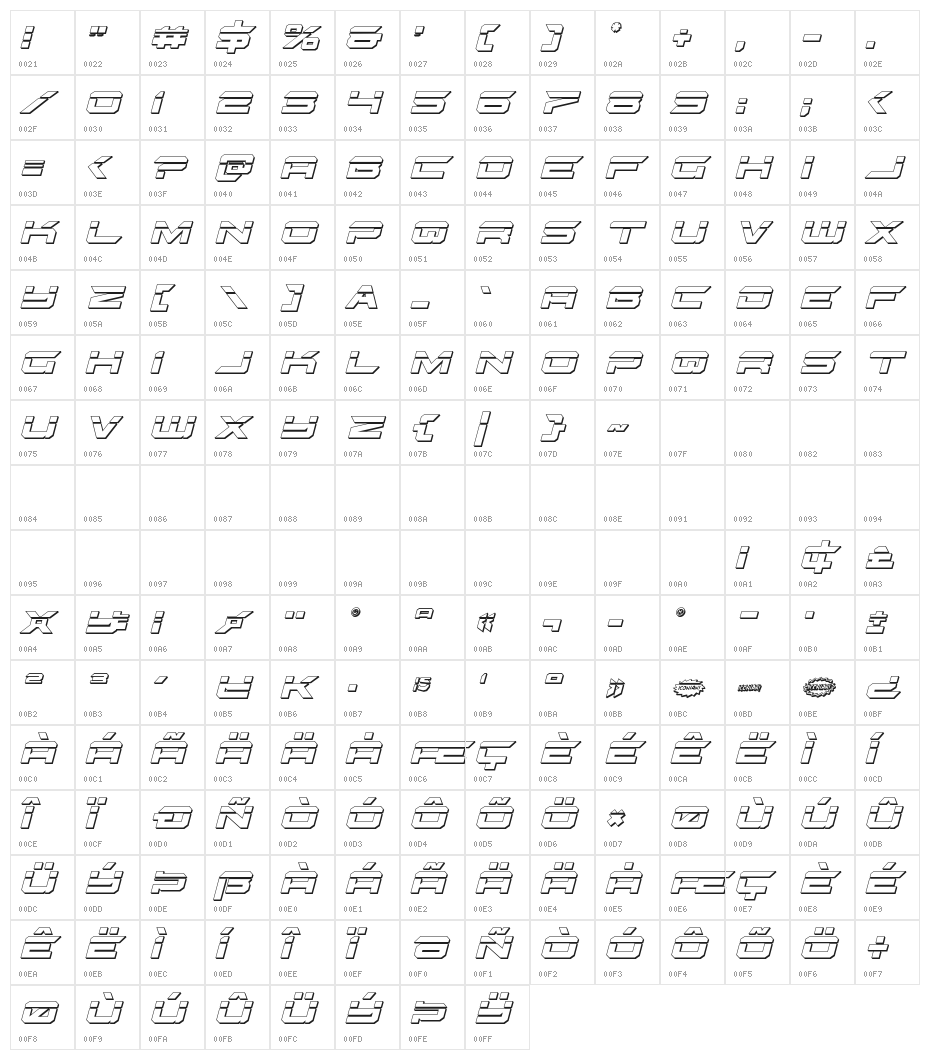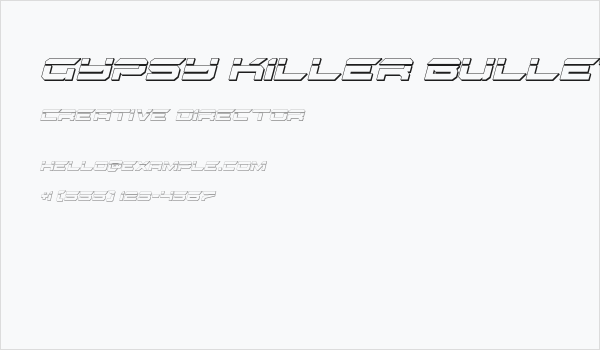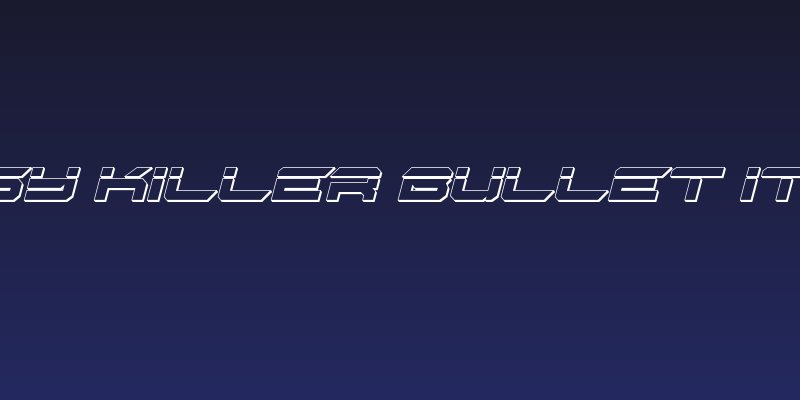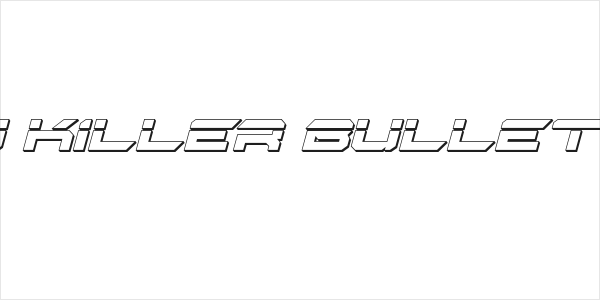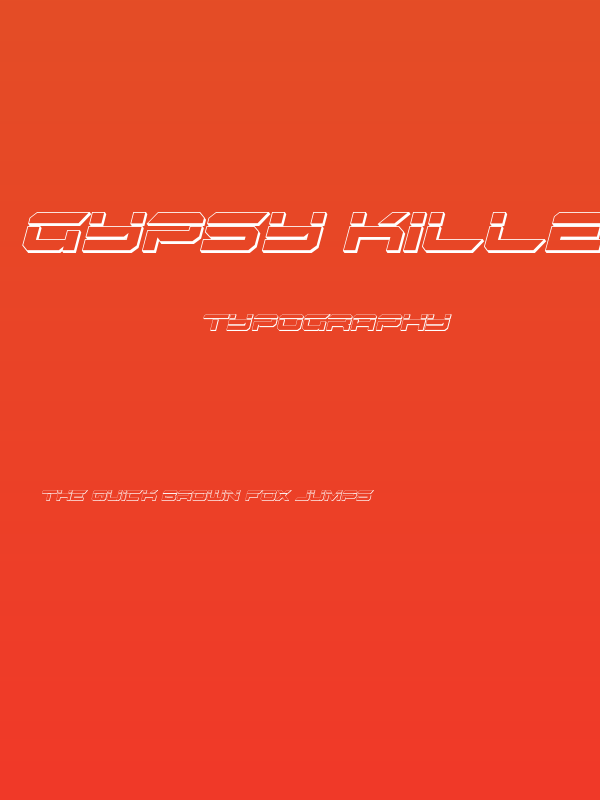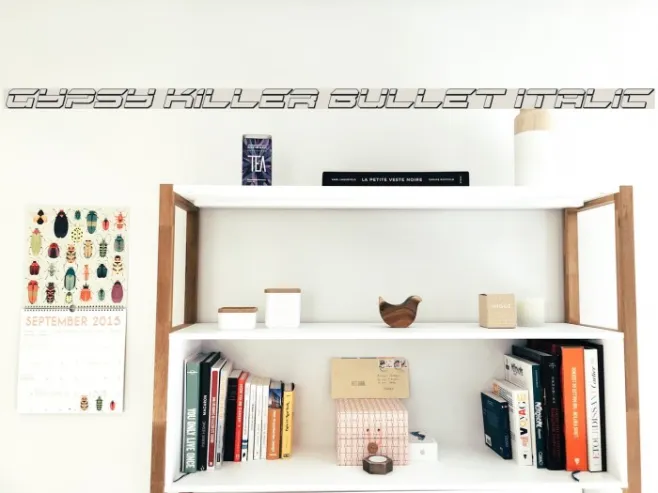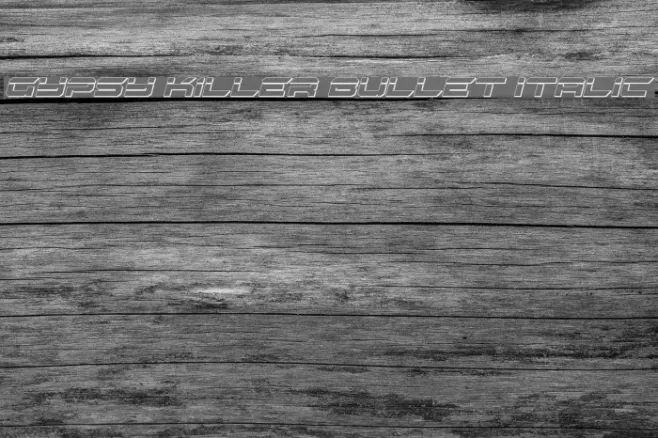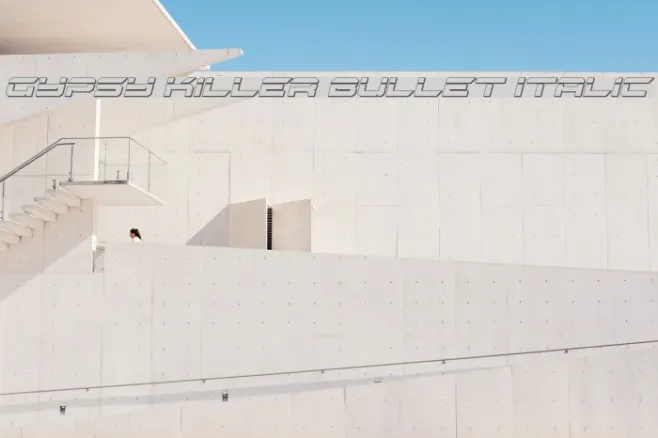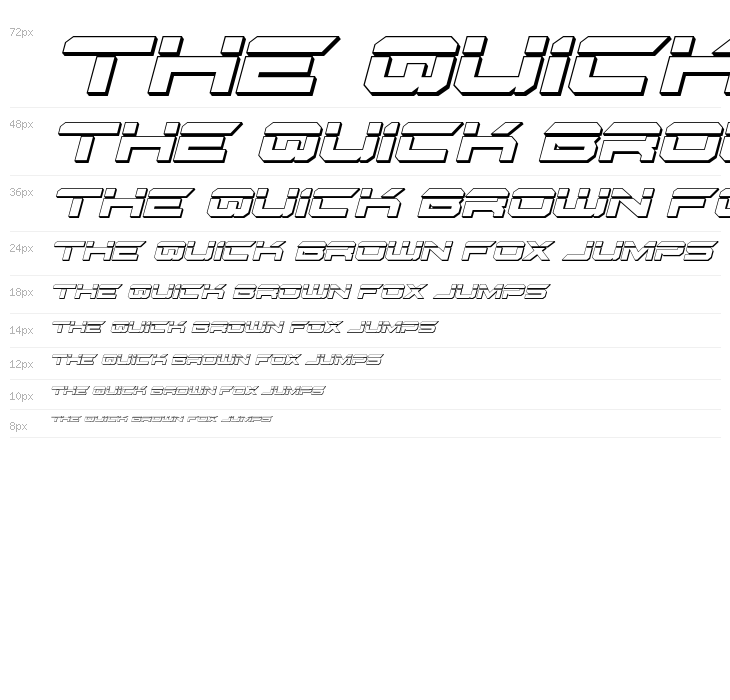
Gypsy Killer Bullet Italic Font
Gypsy Killer Bullet Italic Description
This font features a bold, geometric design with a distinct italic slant, giving it a dynamic and modern appearance. The characters are outlined with a double-line effect, creating a sense of depth and dimension. The angular shapes and sharp edges contribute to its futuristic and edgy style. The uppercase and lowercase letters maintain a consistent aesthetic, while the numerals and special characters complement the overall design. This font is ideal for projects that require a strong visual impact and a contemporary feel.
GYPSY-KILLER-BULLET-ITALIC UPPERCASE
GYPSY-KILLER-BULLET-ITALIC LOWERCASE
GYPSY-KILLER-BULLET-ITALIC OTHER CHARS
| Proposed Projects | Ideal for sci-fi themed posters, video game titles, tech branding, and modern advertising campaigns. |